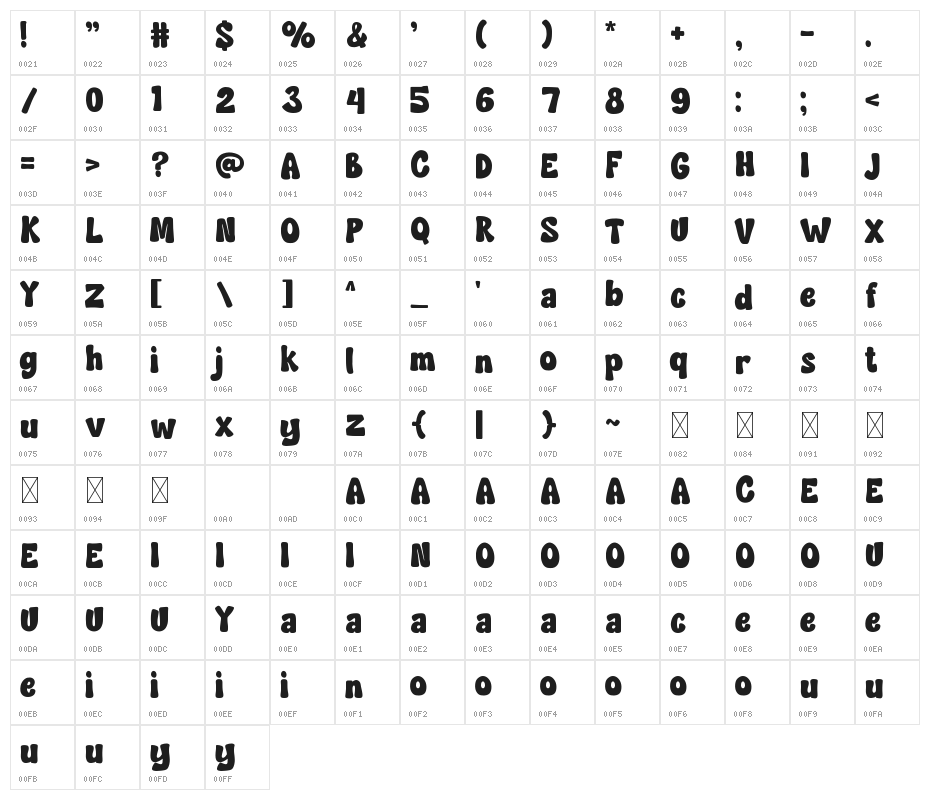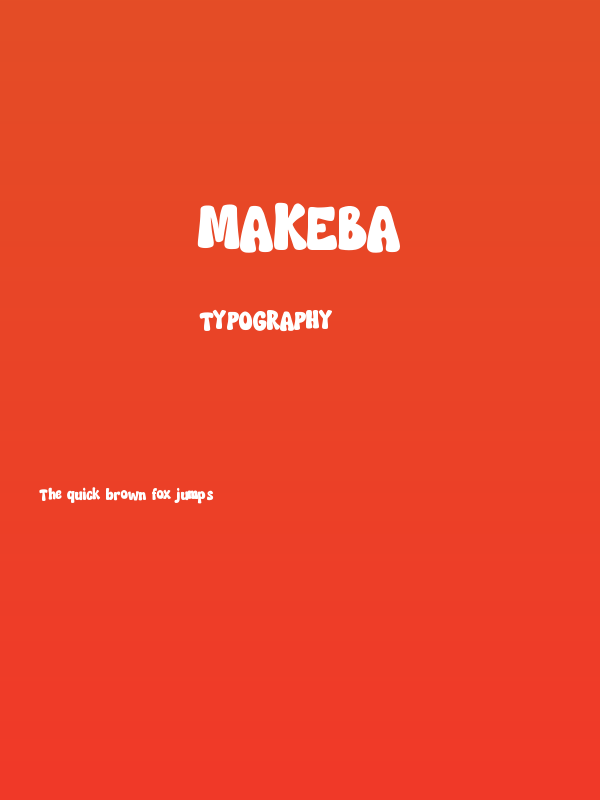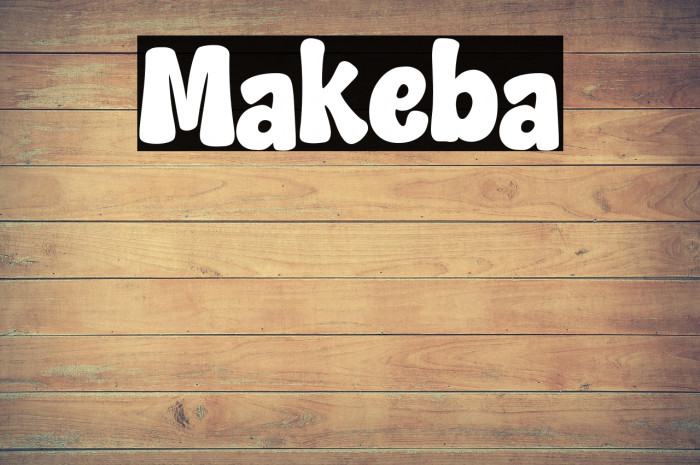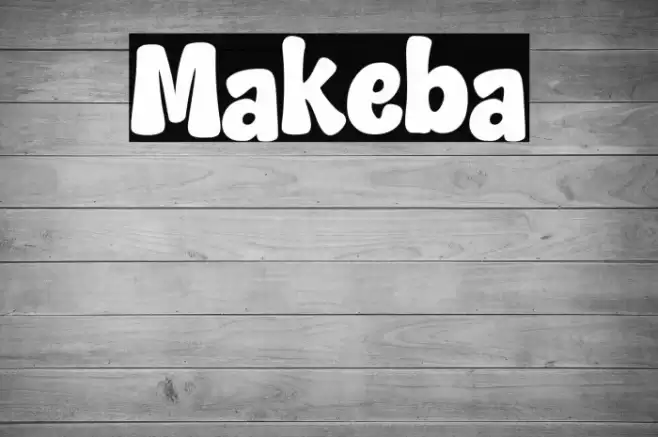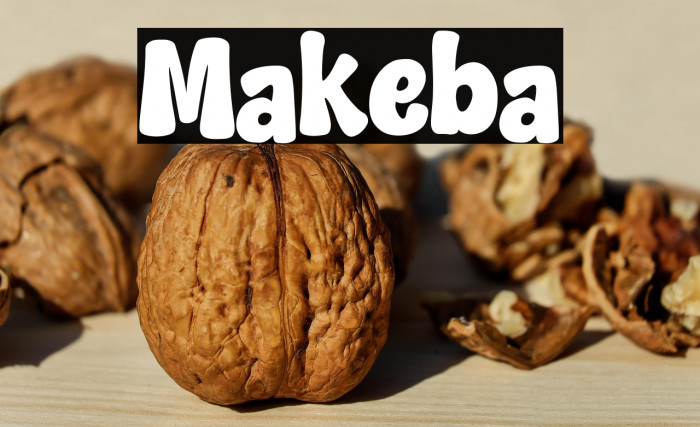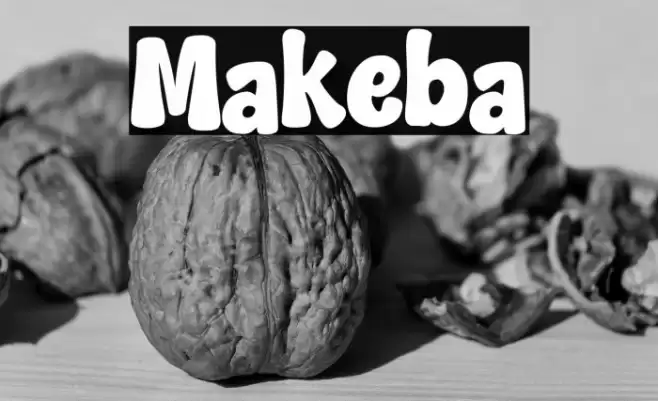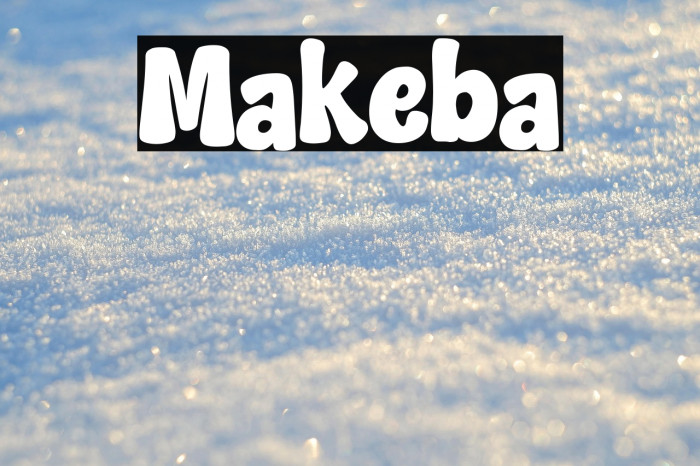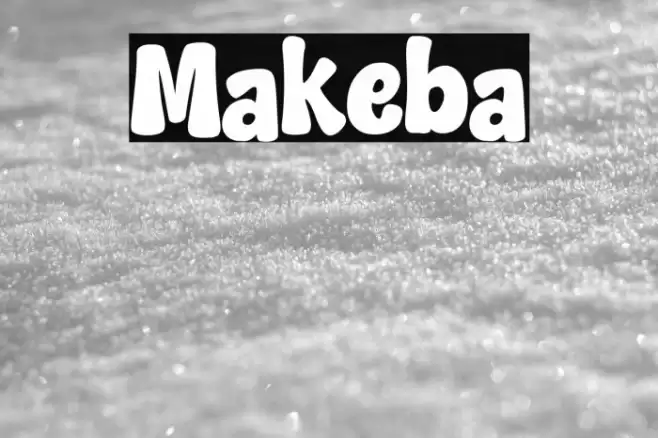
Makeba Font
Makeba Description
This font features a bold and playful style with rounded edges and a slightly irregular form, giving it a friendly and approachable appearance. The characters are thick and substantial, providing a strong visual impact. The uppercase and lowercase letters maintain a consistent weight, while the numbers and special characters are designed to match the overall aesthetic. The font's whimsical nature makes it ideal for creative and informal applications, where a sense of fun and energy is desired.
| Overall Style | Playful, Fun, Energetic |
| Proposed Projects | Ideal for children's books, playful branding, posters, and creative projects that require a fun and energetic vibe. |